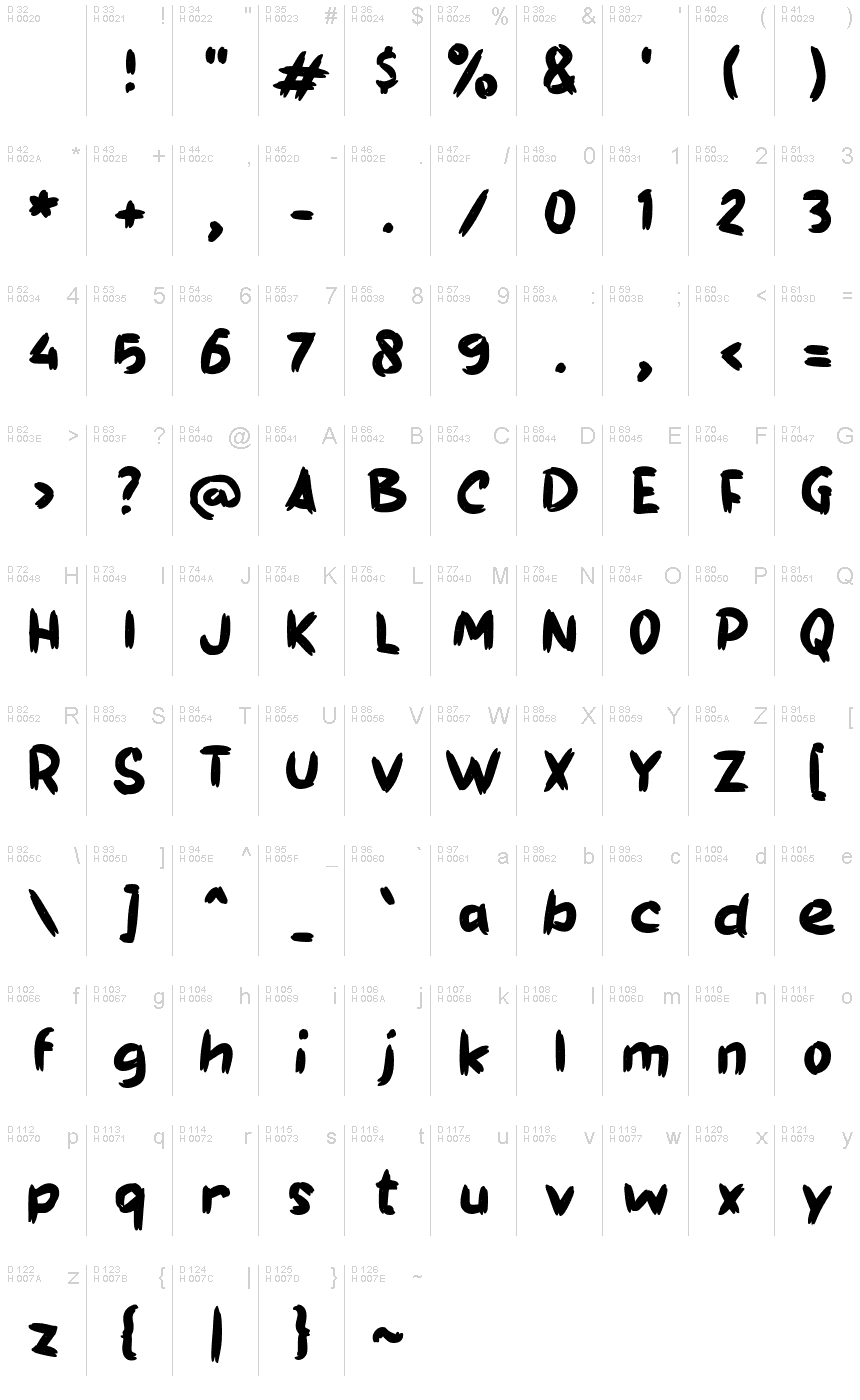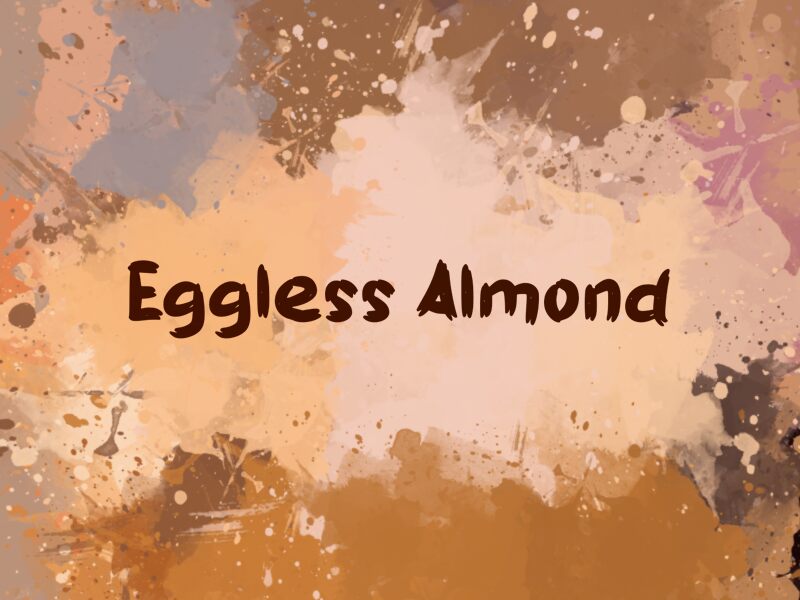
Eggless Almond
Eggless Almond, a bold brush font designed by wep, adds a touch of organic elegance to any project. Its expressive strokes and unique texture make it perfect for creating eye-catching logos, packaging designs, and branding materials. The versatility of Eggless Almond lends itself beautifully to food-related projects like menus, recipe books, and restaurant signage, infusing them with a delectable visual appeal. Whether you're designing for a hip café or an artisanal bakery, this font will elevate your creations with its bold personality and artistic flair.